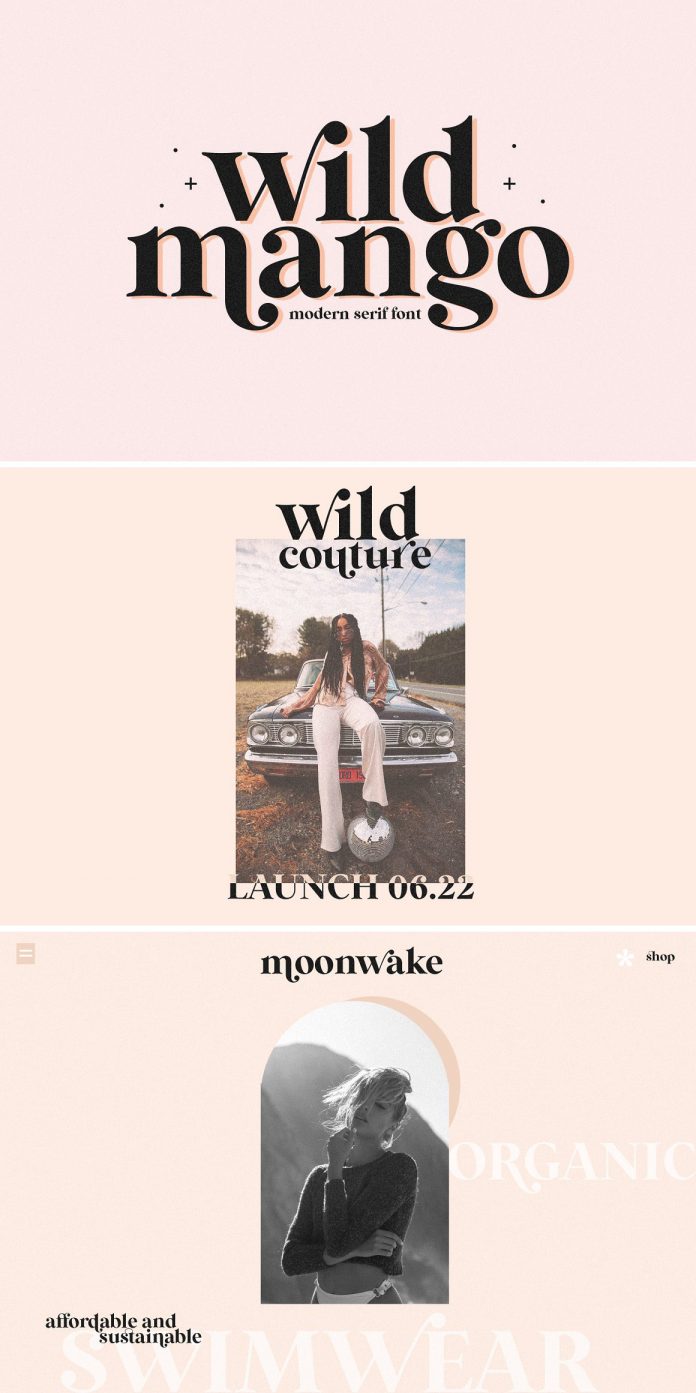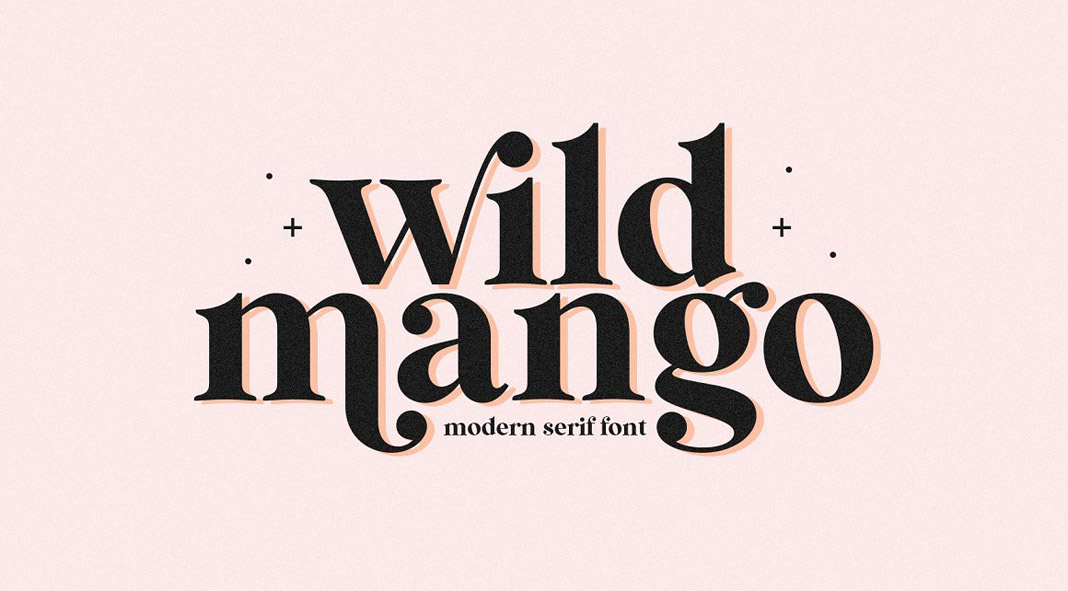
Wild Mango, a charming serif font with decorative alternates.
Are you looking for a typeface for elegant yet friendly designs? This might be something for you. The Wild Mango font has been created by Kaitlynn Albani of KA Designs. It’s a modern interpretation of classic serif fonts. It masterfully combines modern standards with a nice vintage feel. This charming typeface includes upper and lowercase characters as well as super-decorative alternative letters. It is made for display use and designs such as logos, branding projects, social media, prints, stickers, shirts, etc.